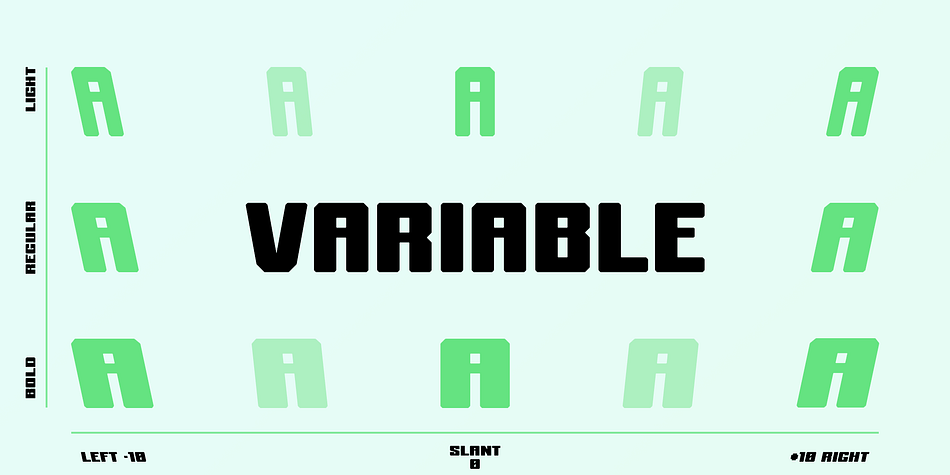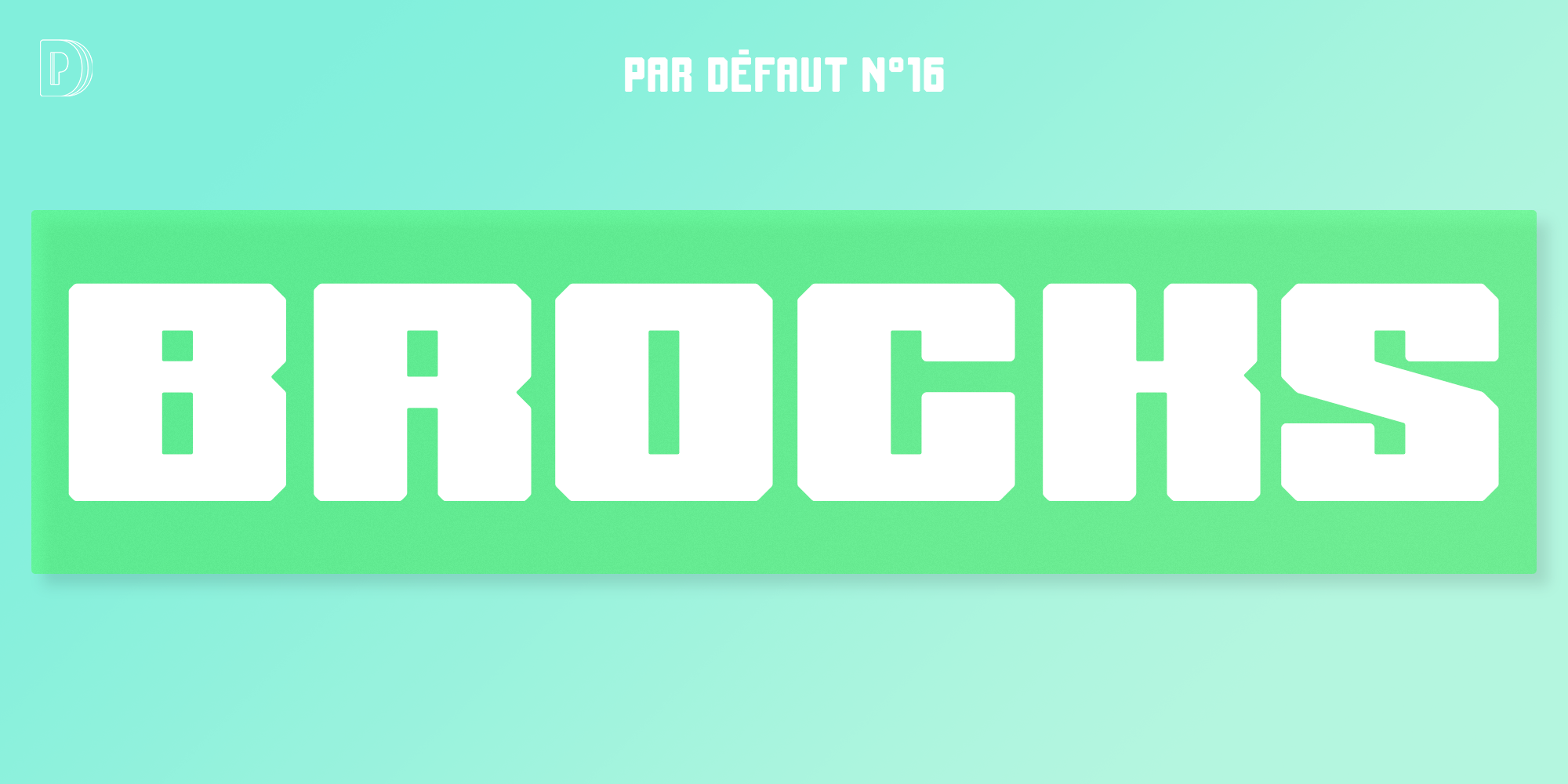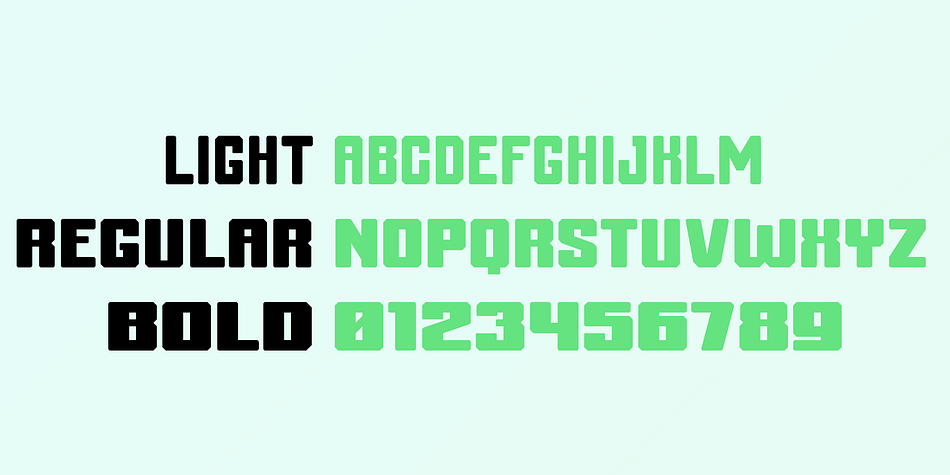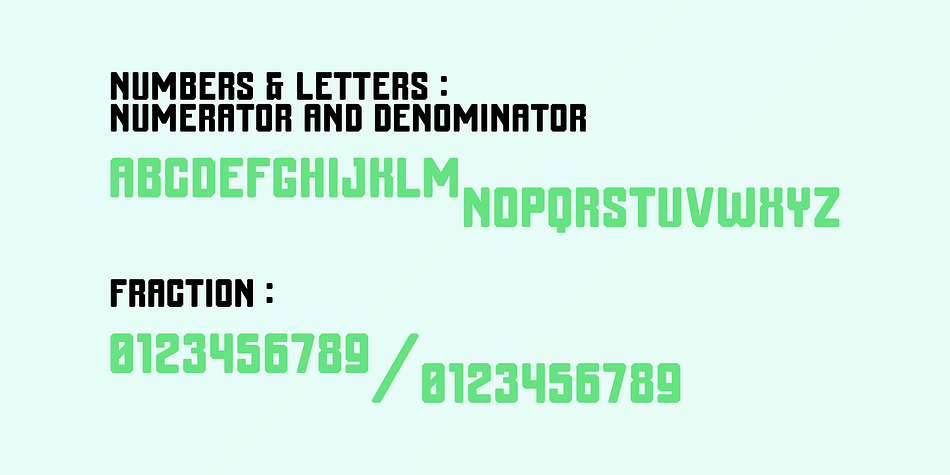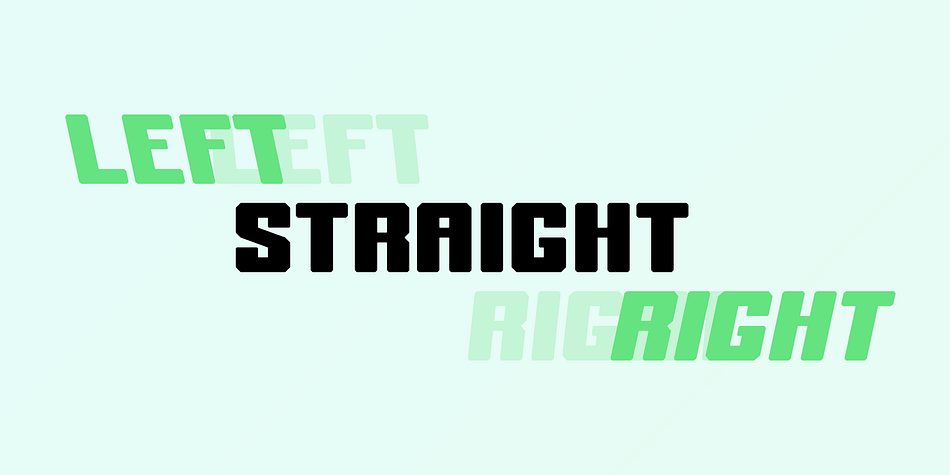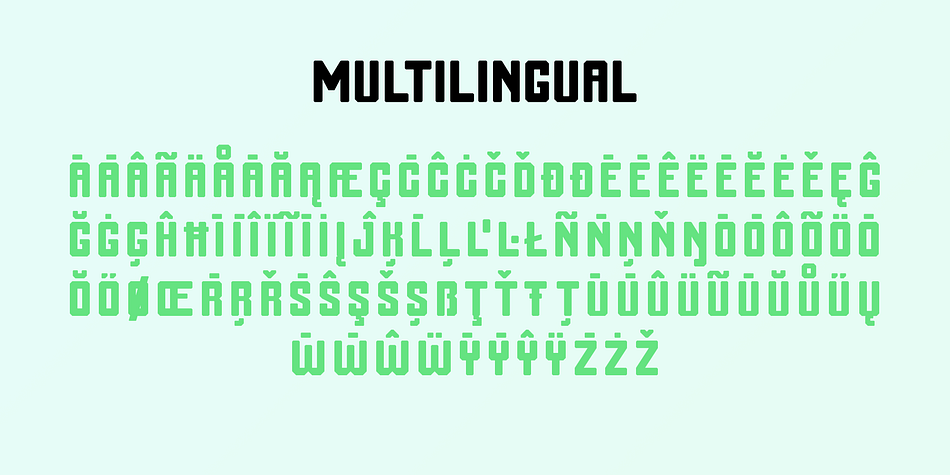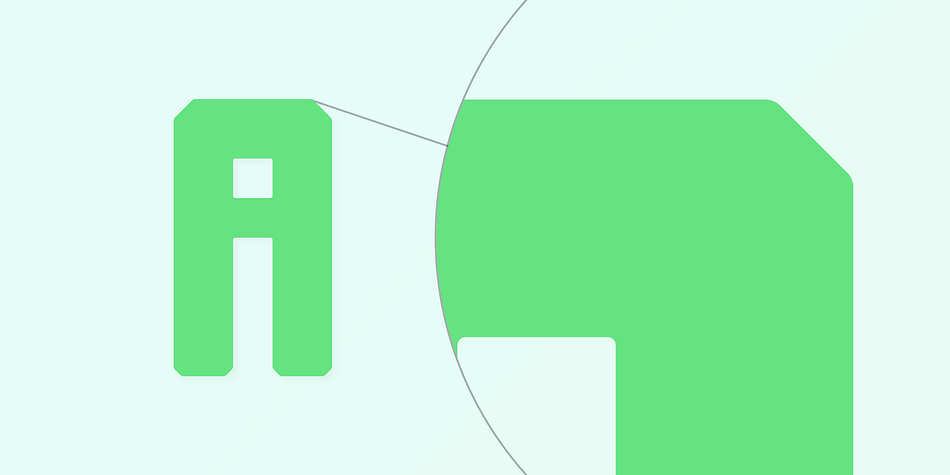
BROCKS
Brocks is a display sans font family. This typeface has ten styles and was published by Par Défaut.
Square in appearance but with soft vertices, Brocks is composed of more than 400 characters.
From Latin Pro for multiple language usable.
The latin alphabet is available, for uppercase and lowercase, in numerator, denominator and ordinal version.
The same for the numbers with fraction features until 10 figures on each side.
Exist in Light, Regular and Bold weights, in Right and Left slant version.
All of this available in Variable version.